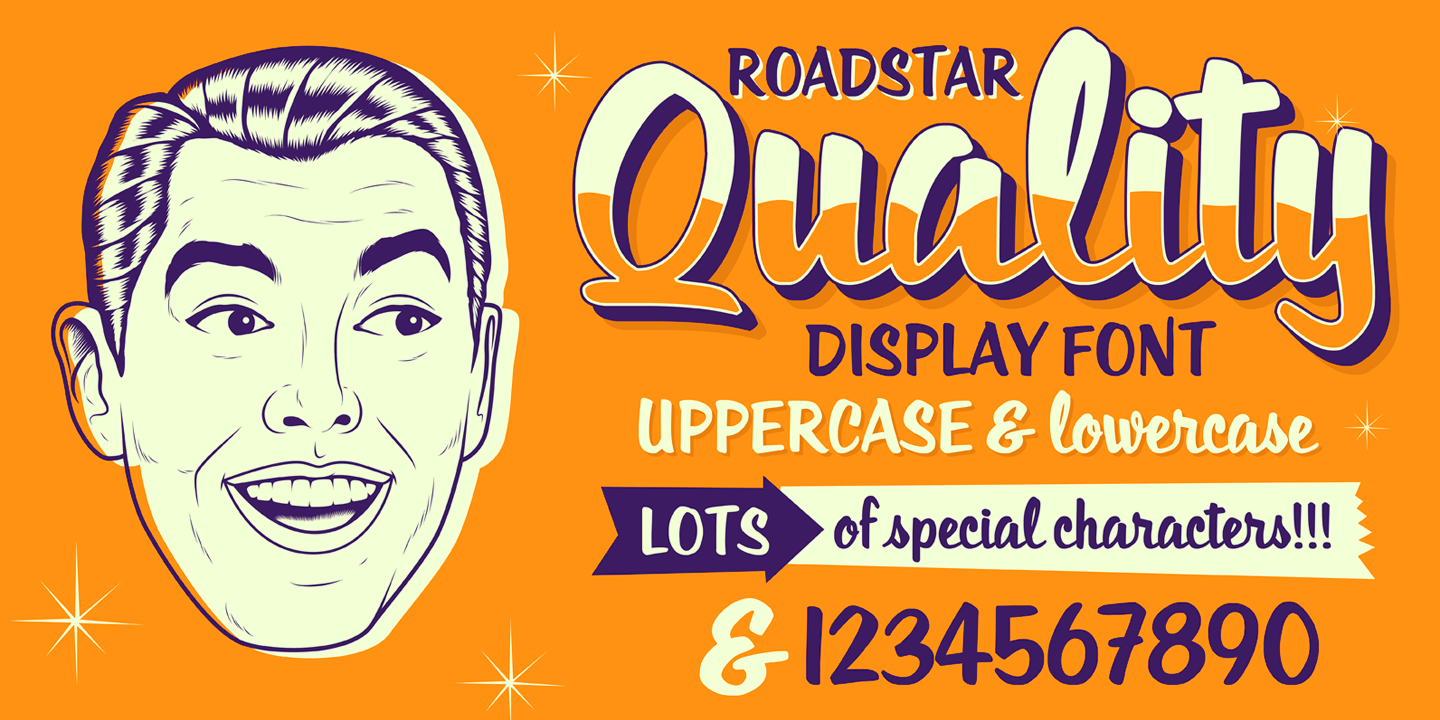
Roadstar Font is perfect for automotive dealership branding, motorcycle club logos, racing team merchandise, vintage car show posters, road trip travel guides, trucking company signage, adventure tour promotions, classic American diner menus, biker bar advertisements, and retro automotive magazine layouts. This dynamic typeface brings authentic highway culture and automotive passion to any design project celebrating freedom, adventure, and the open road.
Roadstar Font is exciting because it captures the rebellious spirit and endless possibilities of American road culture through its bold, confident letterforms. The font's strong presence and adventurous character evoke the thrill of the open highway and automotive heritage, making it perfect for brands that want to communicate freedom, adventure, and authentic American spirit to enthusiasts and dreamers.
Roadstar Font family includes multiple weights and styles: Regular, Bold, Light, Medium, Black, Condensed, Extended, Vintage, Chrome, and Speed variants. Each style preserves the distinctive road-inspired character while offering designers flexibility for creating powerful automotive branding and adventure-themed communications that celebrate both classic heritage and contemporary road culture.
Whether you're designing for automotive brands, adventure companies, or lifestyle projects, Roadstar Font Free Download delivers the authentic road spirit that resonates with freedom-loving audiences and automotive enthusiasts. This commanding typeface combines American automotive heritage with contemporary design functionality, making it essential for projects requiring both adventure appeal and strong visual impact. The font's energetic presence ensures memorable results in automotive and lifestyle contexts.